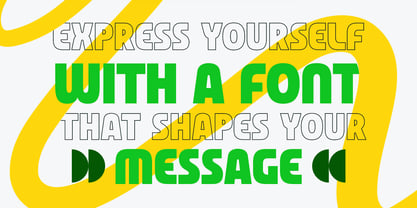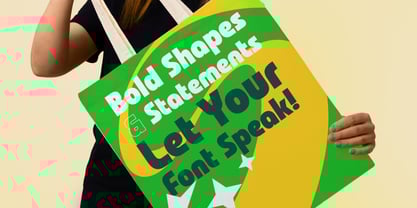
Atlanta
by Sensatype Studio
The Atlanta Font Family was designed by Zamroni Hamzah and published by Sensatype Studio. Atlanta contains 2 styles and family package options. More about this family
Atlanta - Display Font Modern Bold
Atlanta is a modern bold display font designed to make a statement. Its strong, clean lines and impactful structure make it perfect for eye-catching titles, logos, and striking designs. Whether you're working on branding, editorial projects, or digital campaigns, Atlanta's boldness ensures that your message stands out with confidence and clarity.
The font's sharp, modern design is versatile and suitable for both print and digital media. Atlanta excels in delivering a powerful visual presence, making it ideal for creative professionals looking to create bold, attention-grabbing work. It brings a sleek, contemporary feel to any project, from large-scale headlines to standout logo designs.
With its modern bold aesthetics, Atlanta takes your designs to the next level. If you're aiming for bold, dynamic typography, Atlanta is the go-to font to add sophistication and strength to your creative toolkit.
Atlanta Display Font Modern Bold Features:
• Bold and modern display characters
• Ready in Regular & Outline Style
• Punctuation, Number, and Symbol
• Uppercase and Lowercase
• Opentype Features
Multilingual Characters available for:
Afrikaans, Albanian, Asu, Basque, Bemba, Bena, Breton, Chiga, Cornish, Dutch, English, Estonian, Filipino, Finnish, Friulian, Galician, German, Gusii, Indonesian, Irish, Italian, Kabuverdianu, Kalenjin, Kinyarwanda, Luo, Luxembourgish, Luyia, Machame, Makhuwa-Meetto, Makonde, Malagasy, Manx, Morisyen, North Ndebele, Nyankole, Oromo, Portuguese, Quechua, Romansh, Rombo, Rundi, Rwa, Samburu, Sango, Sangu, Scottish Gaelic, Sena, Shambala, Shona, Soga, Somali, Spanish, Swahili, Swedish, Swiss.
Designers: Zamroni Hamzah
Foundry: Sensatype Studio